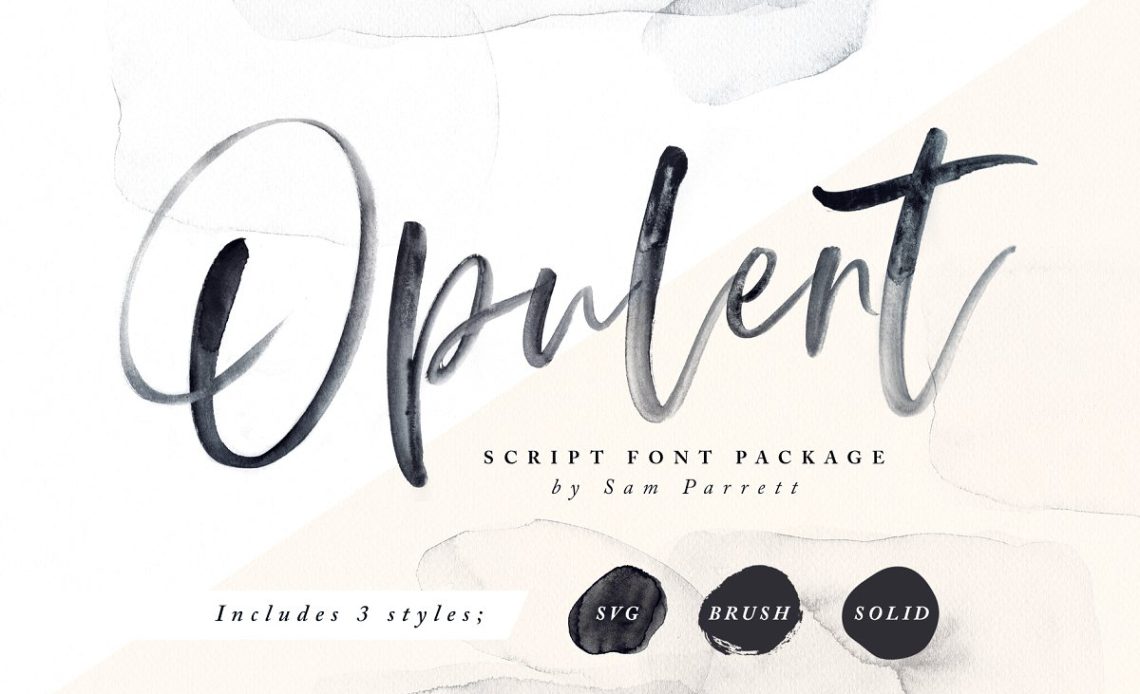
Are you looking for a stunning and versatile hand-lettered modern calligraphy font for your next project? Look no further than Opulent! Created by the talented Sam Parrett, Opulent comes in three different forms: SVG, Brush, and Solid, giving you a wide range of options to choose from.
Opulent SVG Font is perfect for those who want to recreate stunning hand-lettering with high-definition watercolor textures. It's built into the font as a transparency, ensuring that what you see in the preview images is exactly how the font types. And if you're not familiar with how to use it, don't worry! Check out the video tutorial provided for a quick guide.
Opulent Brush Font, on the other hand, is perfect for those who need the font in a traditional vector format while still maintaining an authentic rough paintbrushed finish to its edges. This style is ideal for creating bold and eye-catching designs.
If you're looking for a silkier, smooth finish to your text, then Opulent Solid Font is the perfect choice for you. It's perfect for vinyl cutters such as Cricut and Silhouette Cameo.
All three styles of the font include an 'Alt' version, which has replaced all of the lowercase characters with a completely new set. This allows you to avoid letters looking the same each time you recreate custom lettering, or try a different word shape, simply switch to the 'Alt' fonts for an additional layout option.